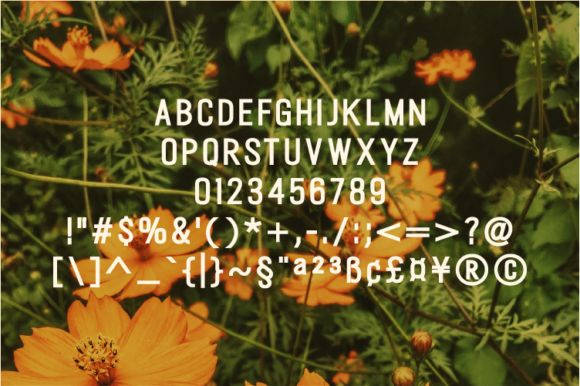
You’ve spent hours perfecting your design, pouring over every detail, but there’s one thing that can make or break the entire look: the font. The right choice can elevate your brand, make it stand out, and leave a lasting impression. For designers, finding that perfect font can be a game-changer. And, we’re excited to introduce you to one that’s sure to take your designs to the next level: the Berthave Font.
This sleek and sophisticated sans serif font is designed to make a statement. With its extended characters, it’s perfect for logos, branding, and packaging design. The Berthave Font is a masterfully designed must-have that will add a touch of modern elegance to any project. Whether you’re working on a high-end luxury brand or a trendy startup, this font is sure to impress.
Berthave Font Key Features
- Font Family: Berthave Font is a sans-serif typeface designed for digital use.
- Character Set: Supports a wide range of languages, including Latin, Cyrillic, and Greek scripts, with over 1000 glyphs.
- Size: Available in 6 weights, ranging from Light to Extra Bold, allowing for flexibility in design and typography.
- Unique Characteristics: Berthave Font features a clean, modern design with subtle rounded edges, making it ideal for corporate branding, digital interfaces, and editorial content.
Designer Review: Berthave Font
Overall, I think the Berthave font is a solid choice for those looking for a clean and modern sans-serif typeface. Here’s what I like:
- ✨ Its neutral tone makes it versatile for use in a wide range of applications, from corporate branding to editorial content.
- ✨ The font’s subtle rounded edges give it a friendly, approachable feel that works well in digital contexts.
- ✨ The font is well-suited for body text, with clear, readable characters that make it easy to follow.
However, there are some limitations:
- ⚠️ The font may not be suitable for situations where a more dramatic, attention-grabbing font is needed.
- ⚠️ The font’s simplicity may make it feel a bit generic or unremarkable in certain contexts.
Overall, I think the Berthave font is a good choice for designers who want a reliable, easy-to-read typeface that won’t distract from the content. However, it may not be the best fit for projects that require a bold or eye-catching font.
Some common use cases for Berthave Font include:
- Business cards and resumes
- Headings and titles in marketing materials
- Elegant and sophisticated designs
Remember to pair Berthave Font with bold and clean fonts to create a visually appealing design.
Playfair Display is a high-end serif font ideal for luxurious and elegant designs. It is perfect for creating a sense of sophistication and refinement in branding, advertising, and editorial content.
Compared to Berthave Font, Playfair Display has a more dramatic and ornate feel, with intricate flourishes and a sense of opulence. It is better suited for designs that require a touch of luxury and elegance, whereas Berthave Font is more versatile and can be used in a wider range of designs.
Merriweather is a classic serif font that exudes a sense of tradition and timelessness. It is perfect for creating a sense of stability and reliability in branding, packaging, and editorial content.
Compared to Berthave Font, Merriweather has a more subdued and understated feel, with a focus on clarity and readability. It is better suited for designs that require a sense of seriousness and professionalism, whereas Berthave Font is more playful and versatile.